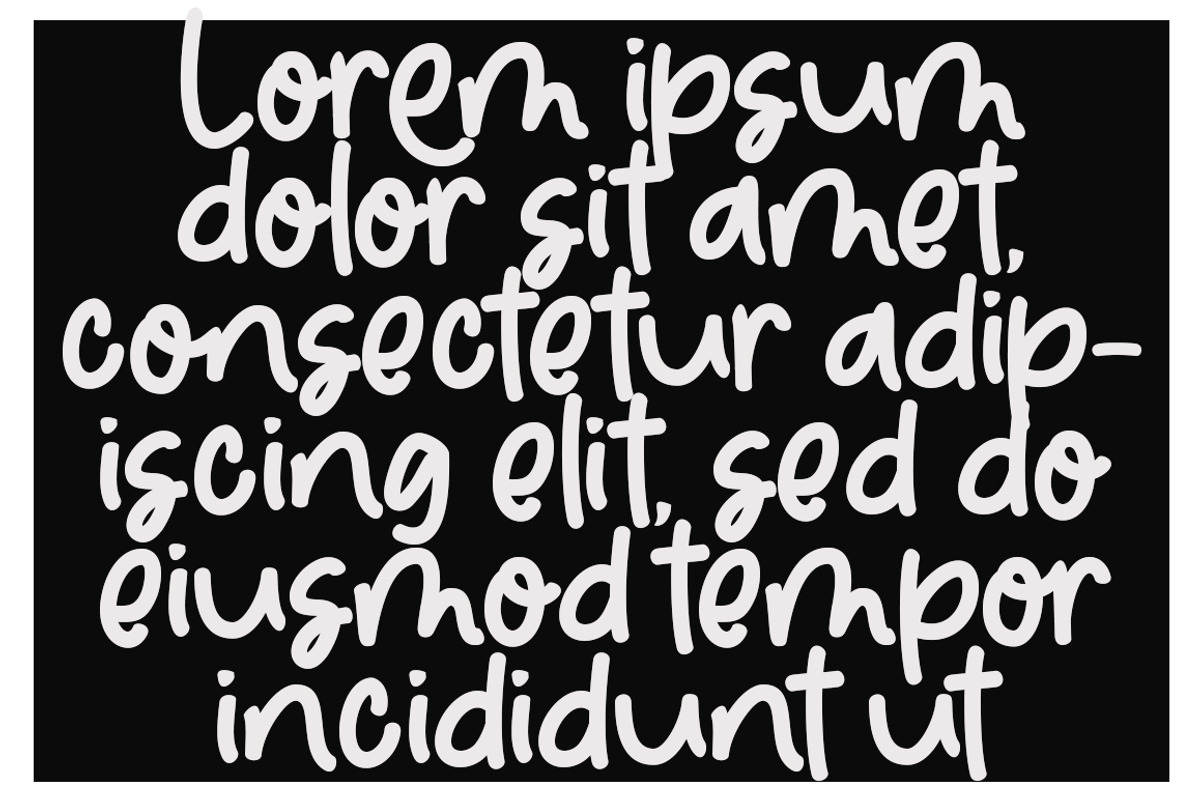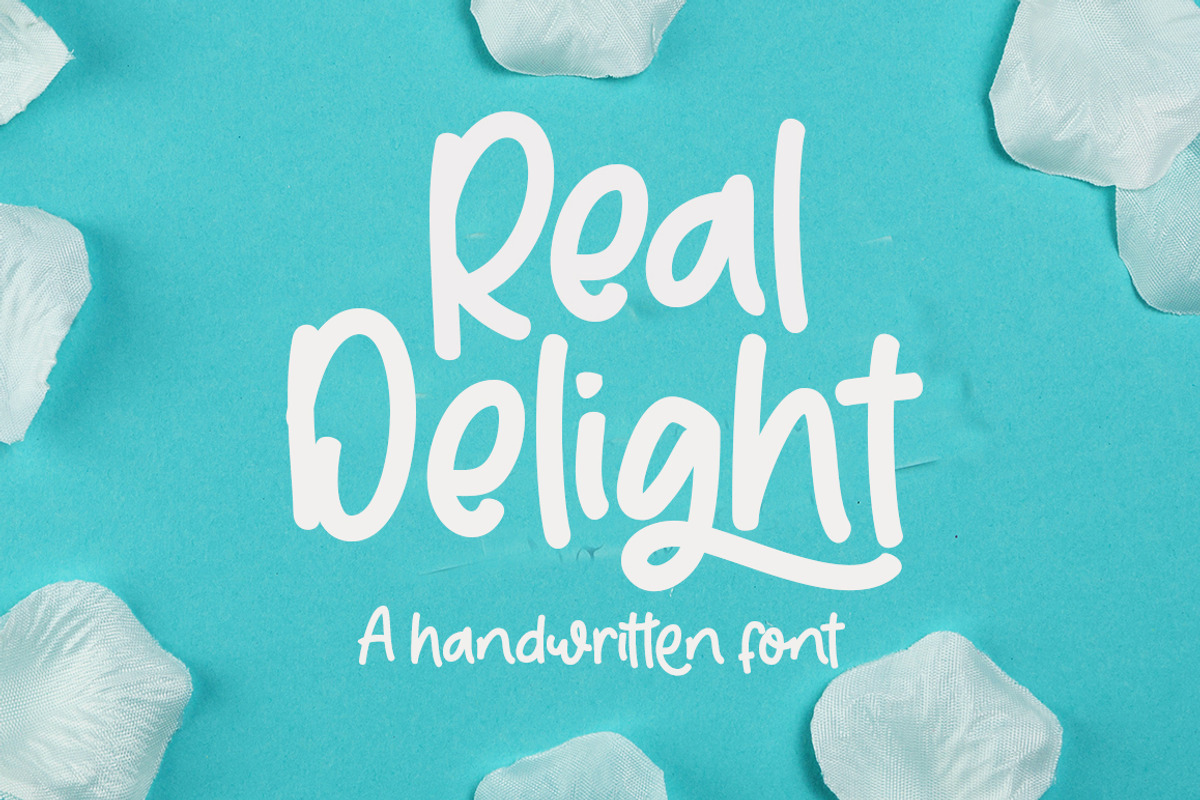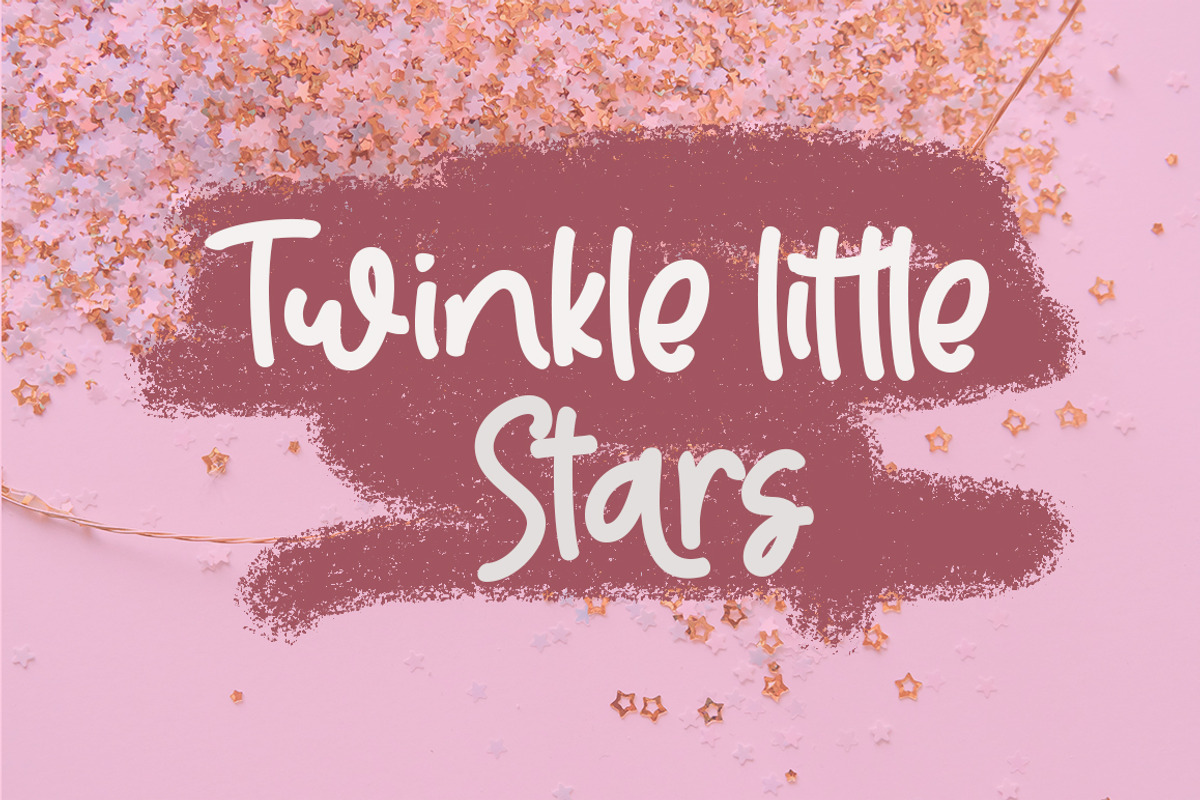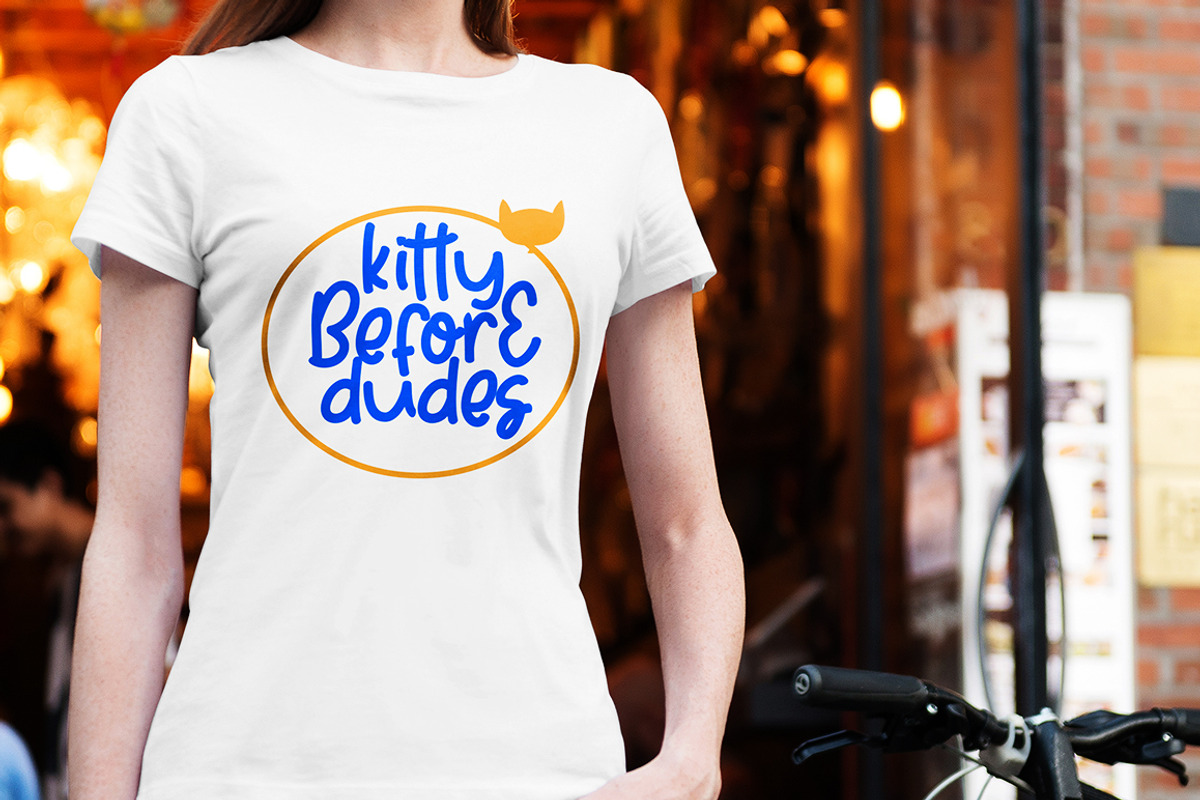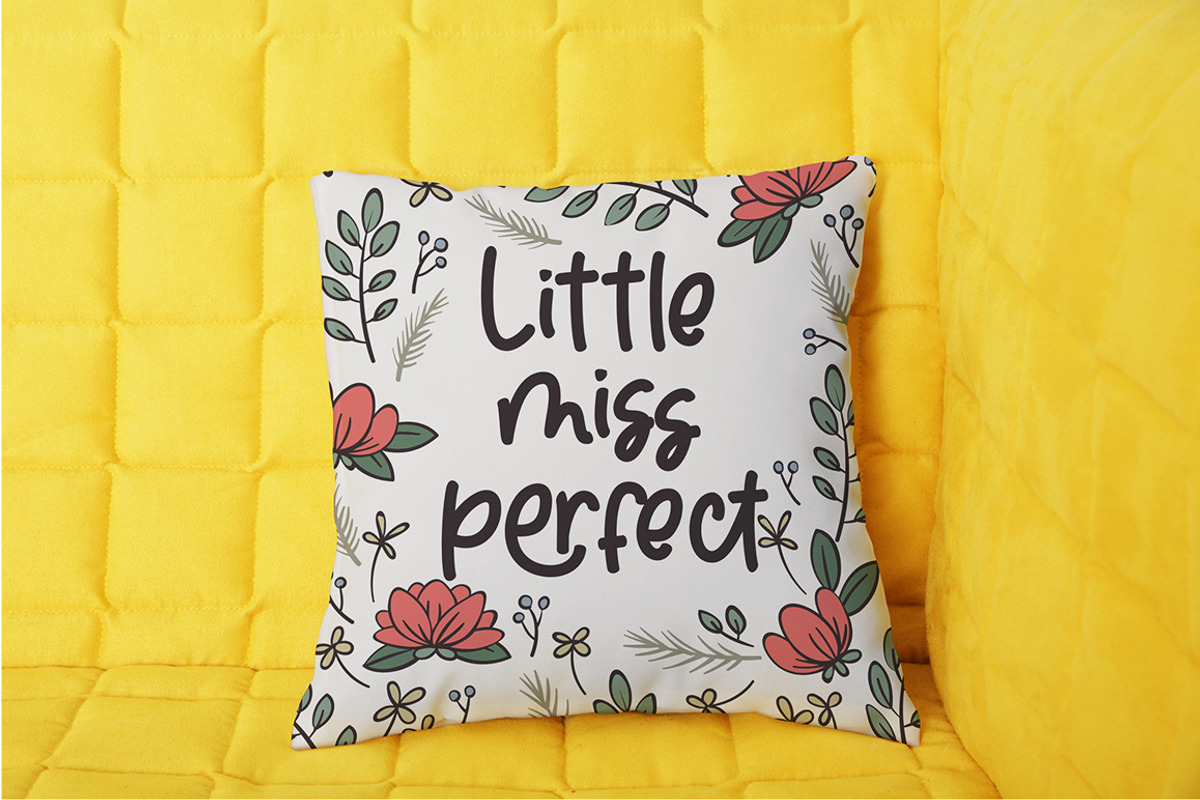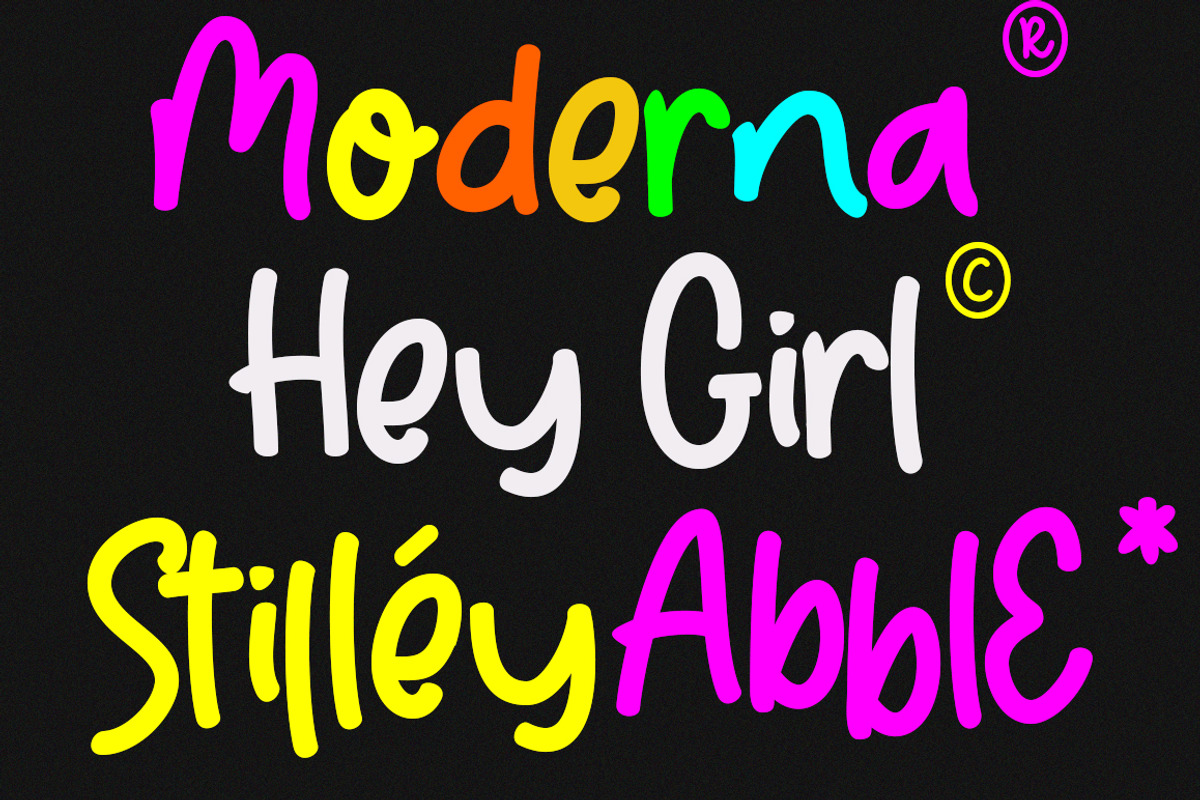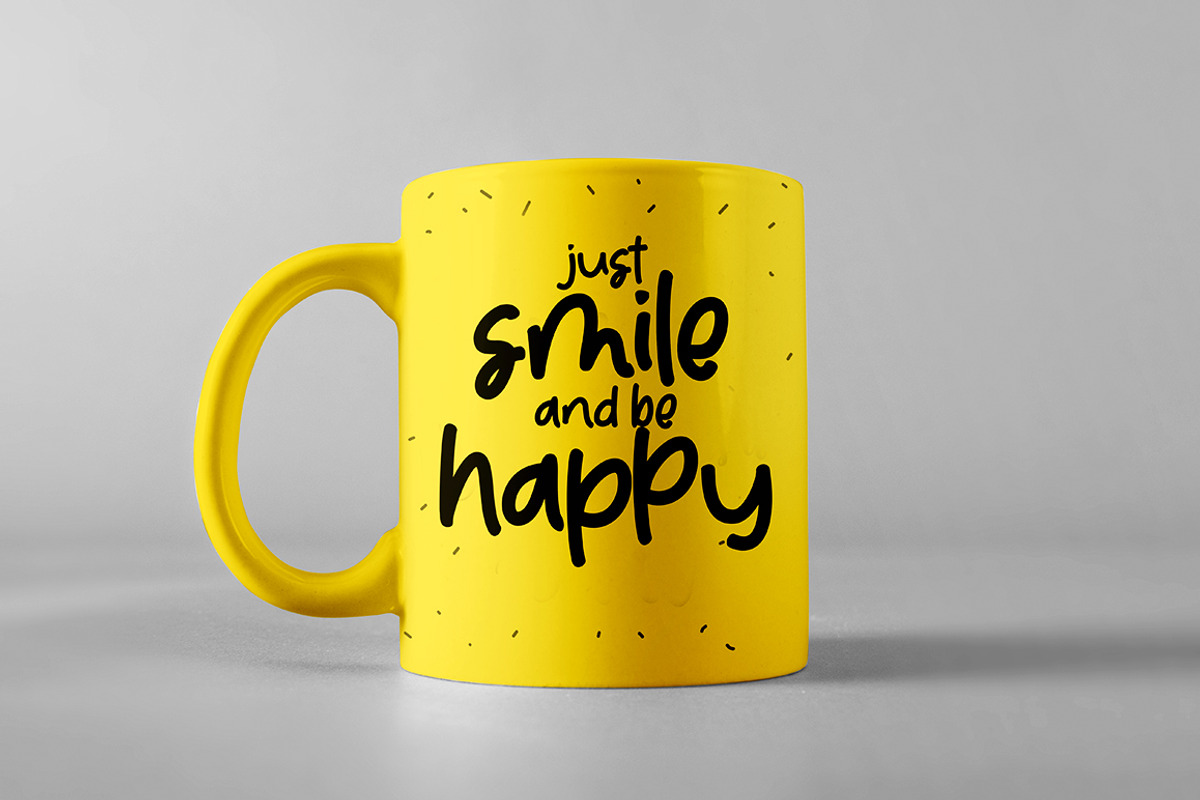
Real Delight handwritten font
Real Delight...
This idea originated during the year-end holidays, trying to casually scribble on paper so it becomes handwritten,
Real Delight includes uppercase and lowercase letters, numerals, and supports multilingual.
This smooth handwriting is perfect for creating signature logos and watermarks for photography studio or blogger, best for initial or branding logos